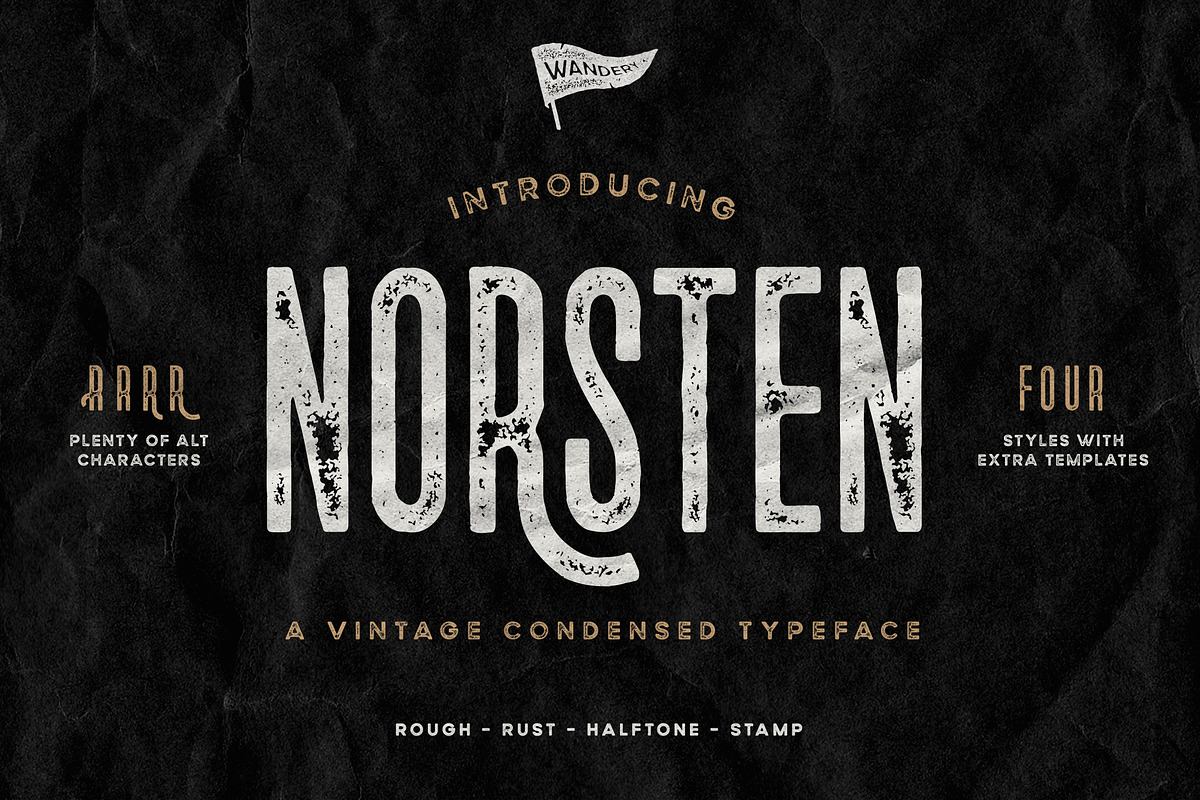
The Norsten Vintage Condensed + Extras Free Download is a stylish and bold typeface that combines the elegance of vintage design with modern versatility. Featuring condensed letterforms and extra decorative elements, this font is perfect for creating eye-catching logos, posters, branding, and retro-themed projects. Whether you're designing for a nostalgic brand, a vintage event, or a creative campaign, Norsten Vintage Condensed adds a unique, timeless touch to your work.
Norsten Vintage Condensed + Extras Free Download is ideal for designers looking to add a retro, bold look to their work. Perfect for creating striking visuals, branding, or creative content, this font will bring a distinctive, vintage-inspired flair to your designs. Download it today and elevate your creative projects with the stylish Norsten Vintage Condensed!